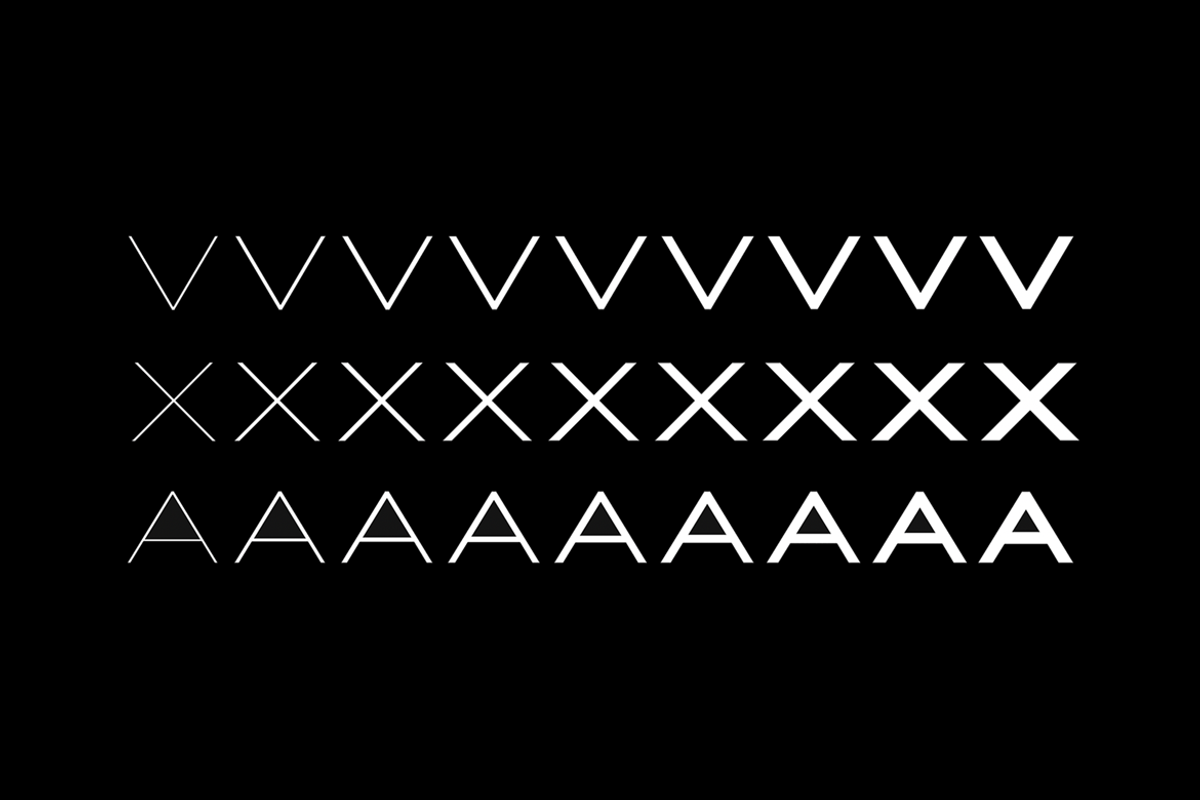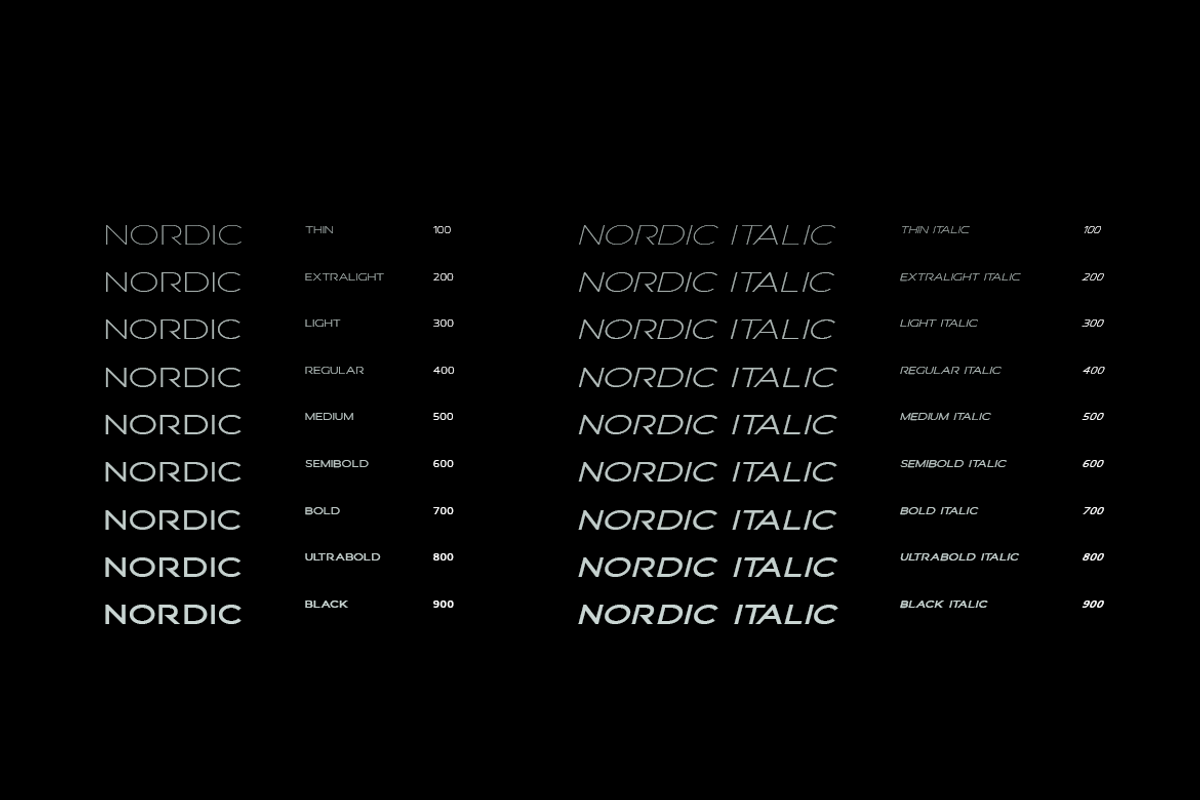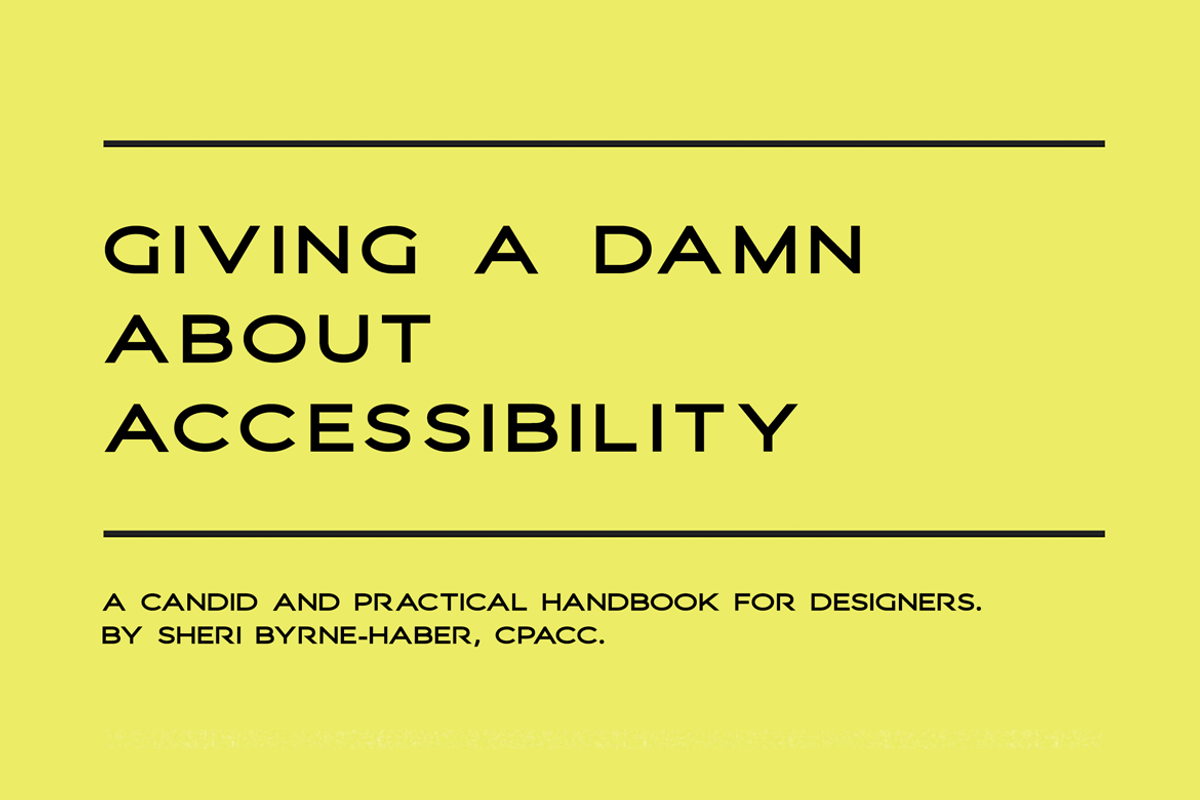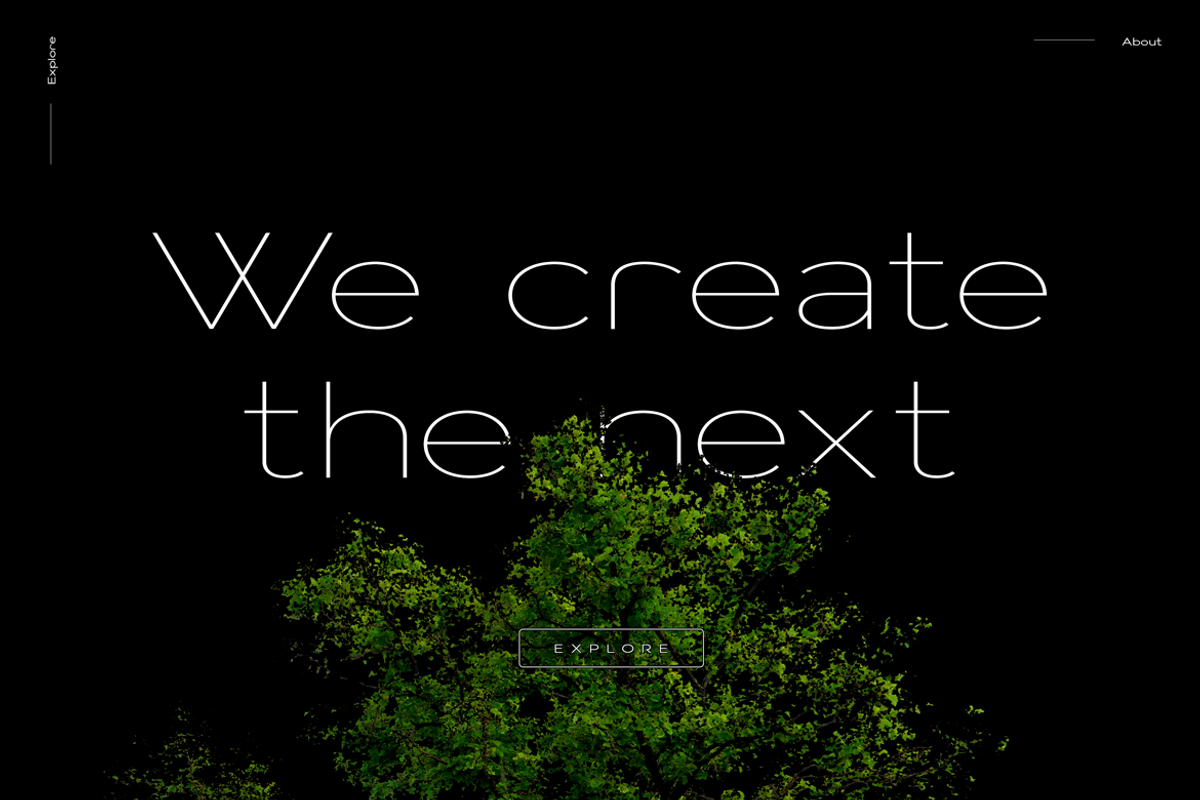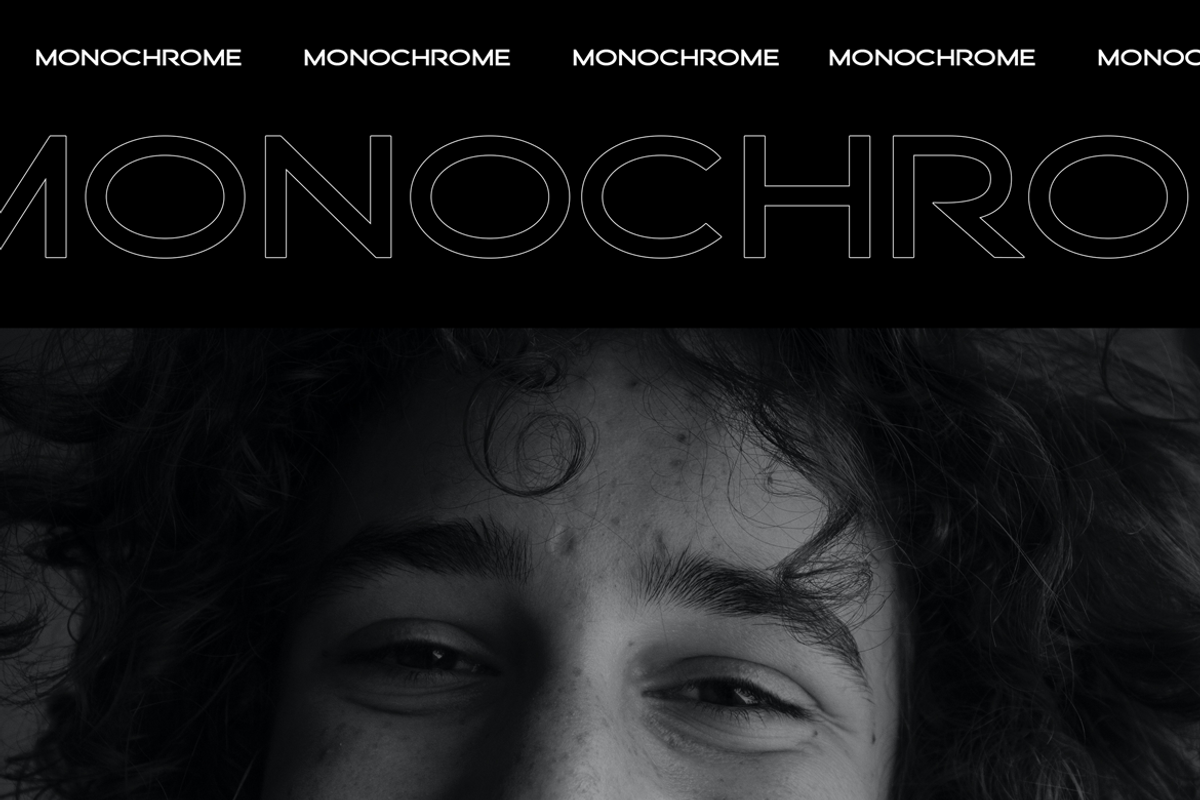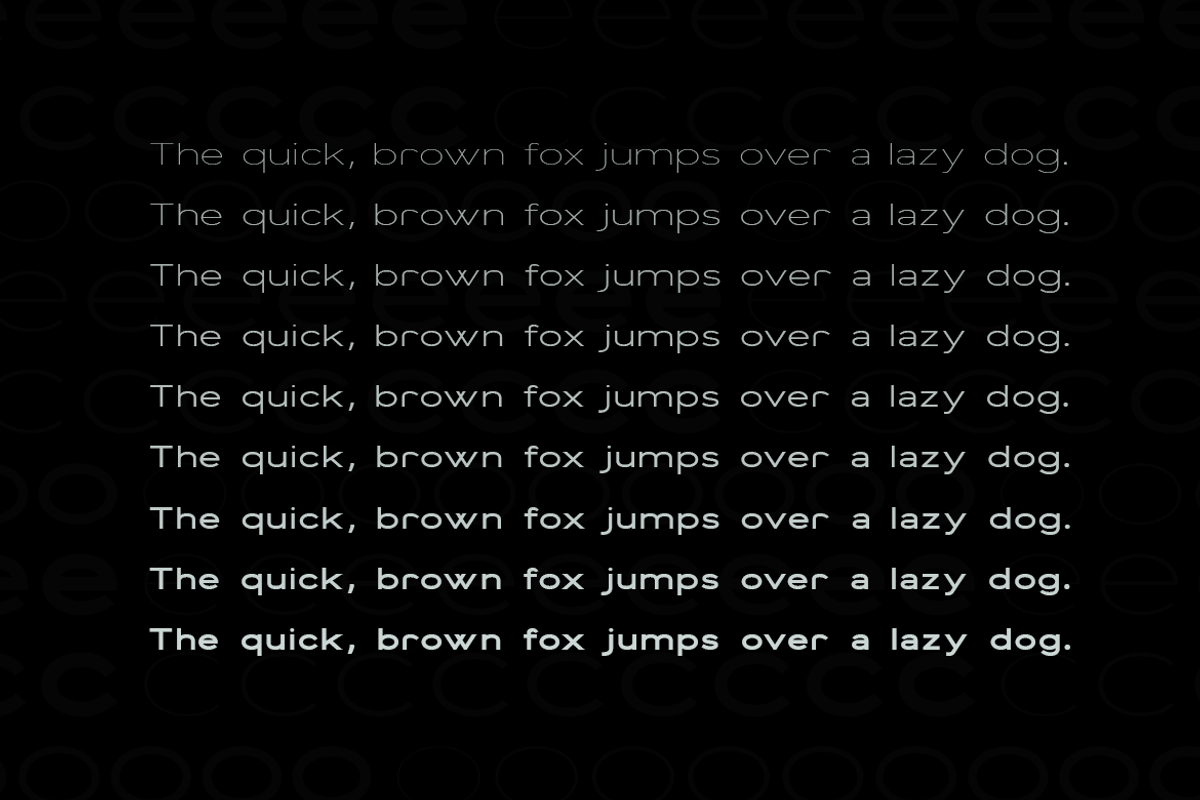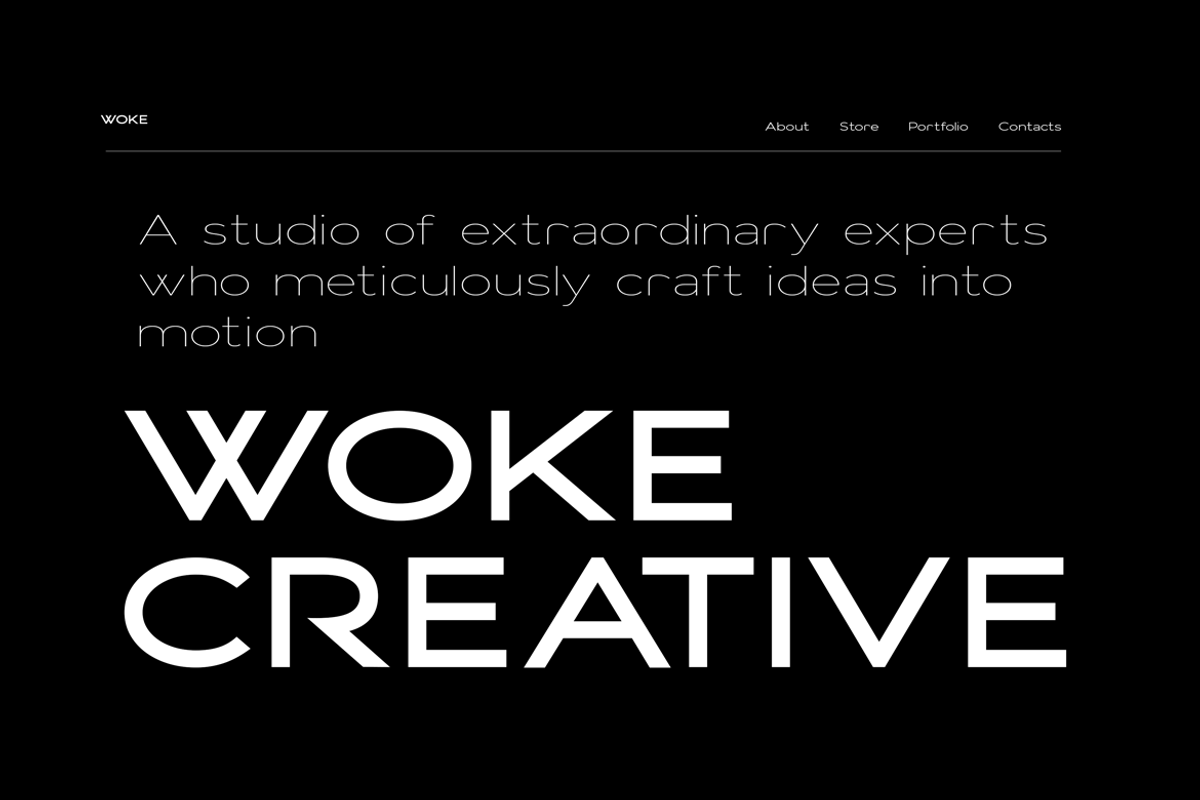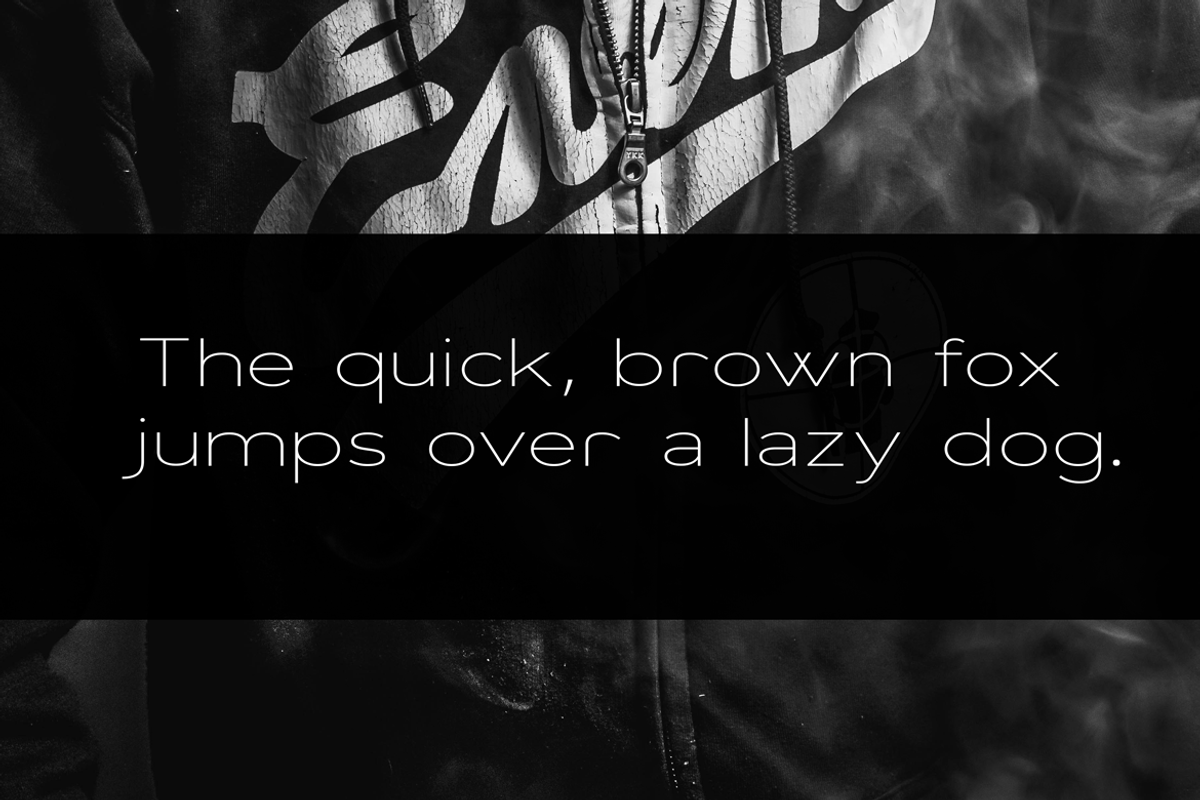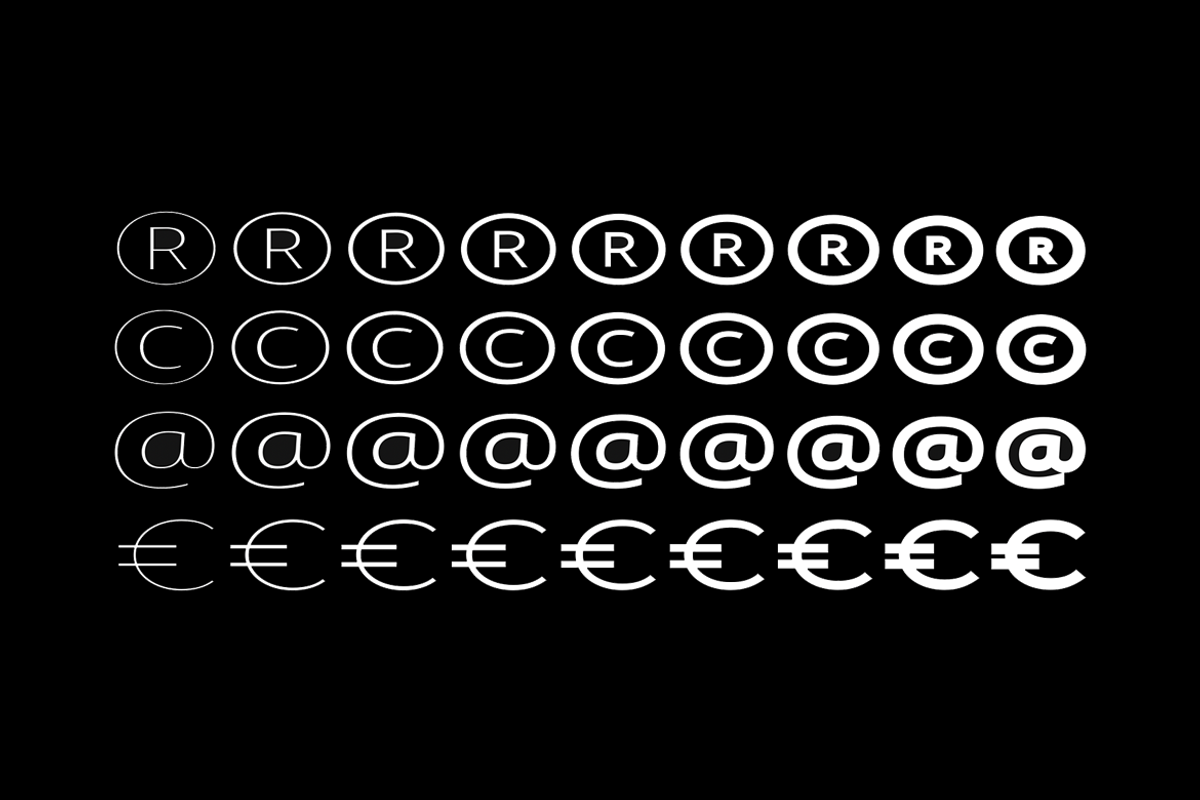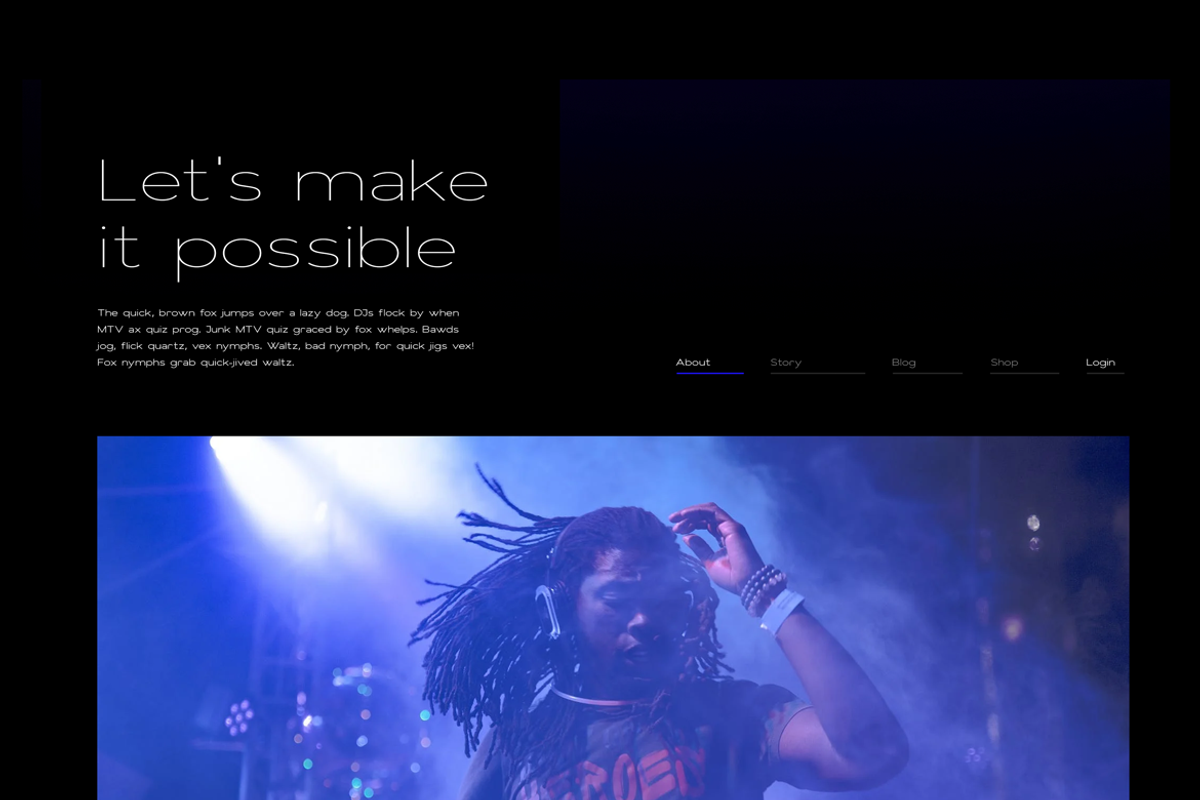
Vista Nordic
Vista Nordic is a minimal and Modern font family.
Made for text display purposes, Nordic brings a contemporary and Robust appearance to your design projects with a bold style, making this font suitable as the Prior heading and common text on a website or layout design. The Nordic family includes 18 fonts in a variety of weights and types.